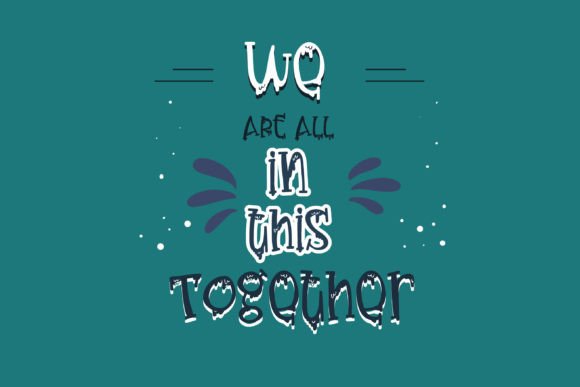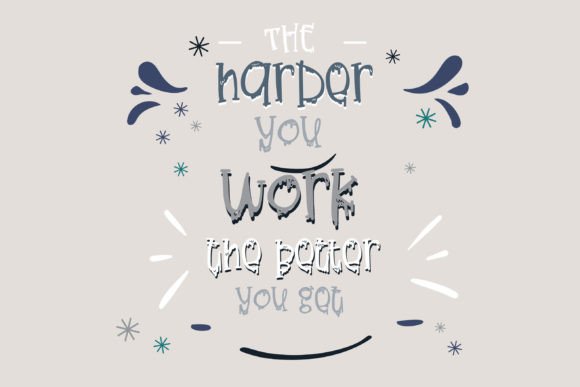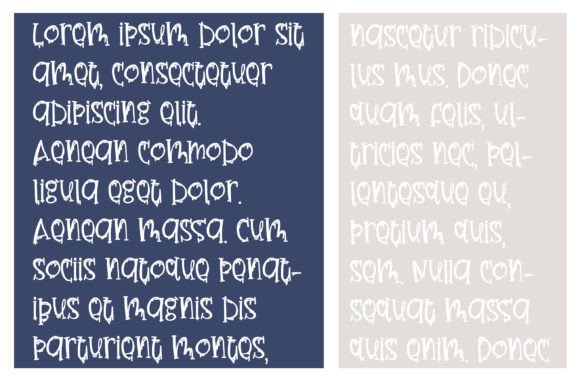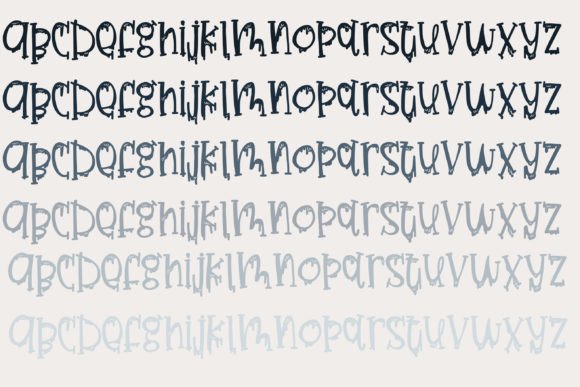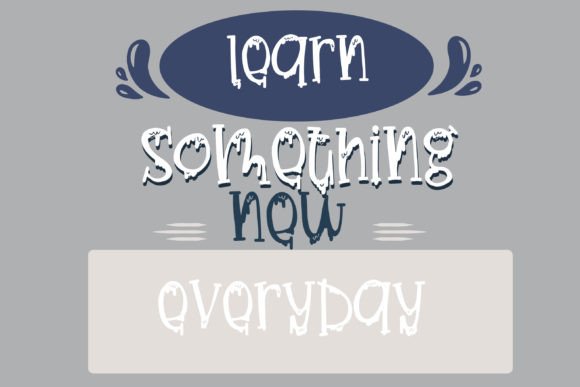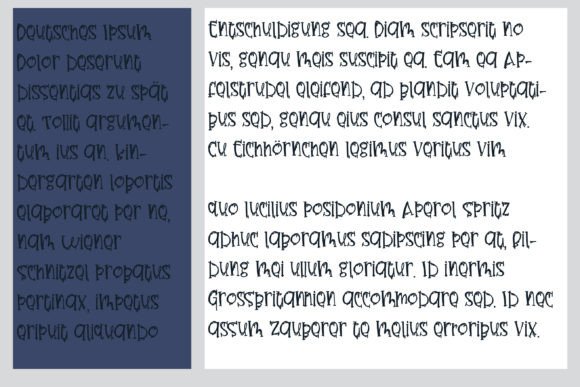
Introduction to Froog-fears Font
As the sun sets on another year, you can almost hear the whispers of creativity calling your name. It’s that time of the year when designers like you start brainstorming ideas for Halloween-themed projects – and I’m here to tell you that I’ve found the perfect design resource to make your creations spooktacular!
Imagine having a font that captures the essence of the season, with whimsical and eerie letterforms that will leave your audience in awe. That’s exactly what you get with the Froog-fears Font – a delightfully playful typeface that’s perfect for adding a touch of Halloween magic to your projects. Whether you’re creating party invitations, posters, or spooky decorations, this high-quality font is sure to be a game-changer.
Key Features of Froog-fears Font
- Unique, hand-drawn style with transparent background for versatility in design applications.
- Perfect for designers and artists looking for a creative and quirky font to add a personal touch to their projects.
Honest Review: Froog-fears Font
I recently stumbled upon the Froog-fears Font, a design resource that caught my attention. As a designer, I was excited to dive in and see what this font had to offer.
- The Froog-fears Font offers a high quality design that is perfect for creative projects.
- The transparent background makes it easy to incorporate into any design without distractions.
- The unique design is sure to add a creative touch to any project.
- The font may not be suitable for all types of projects, particularly those requiring a more traditional or formal look.
- The font’s unique design may not be to everyone’s taste, so it’s essential to test it before using it in a project.
Overall, I’m impressed with the Froog-fears Font. Its high quality design and free download make it a valuable resource for designers. While it may have some limitations, I believe it’s a great addition to any design library.
For the most out of Froog-fears Font, try using it as a title font or for highlighting important information. You can also use it to create a bold and eye-catching design for your website, social media, or marketing materials. Some common use cases for Froog-fears Font include branding, logos, and packaging design.